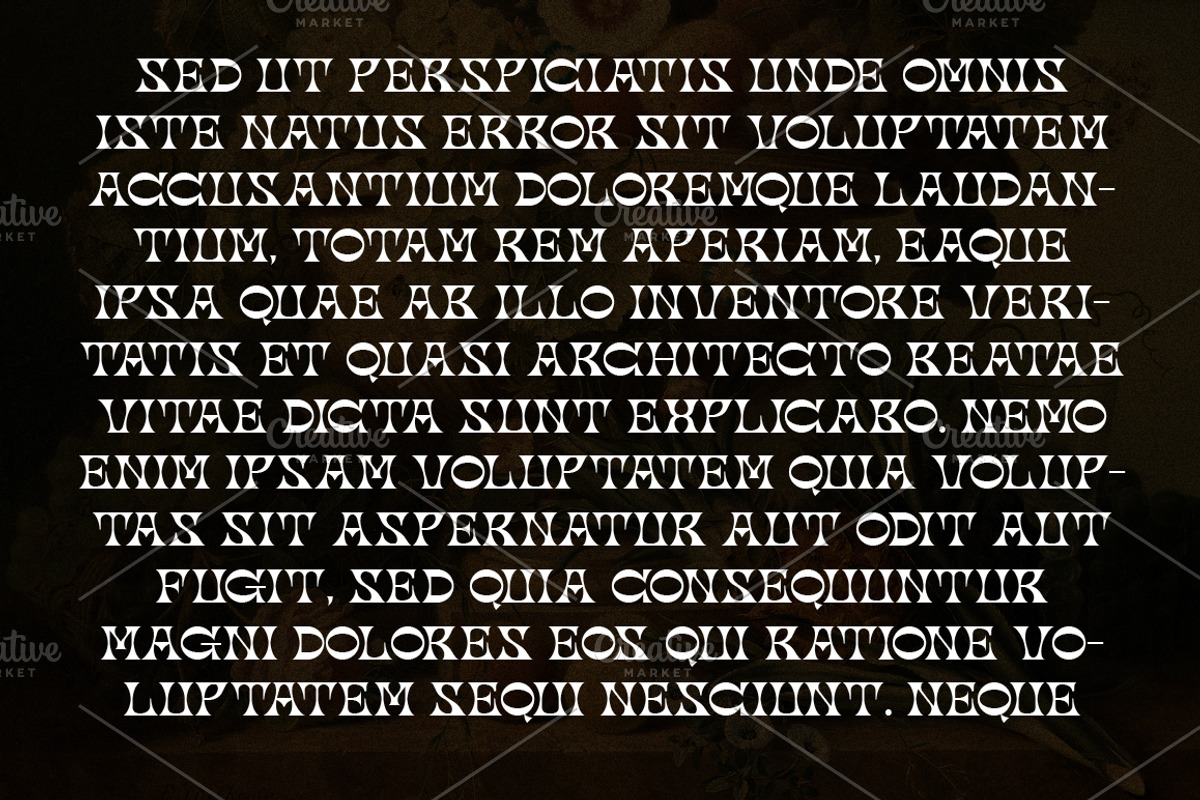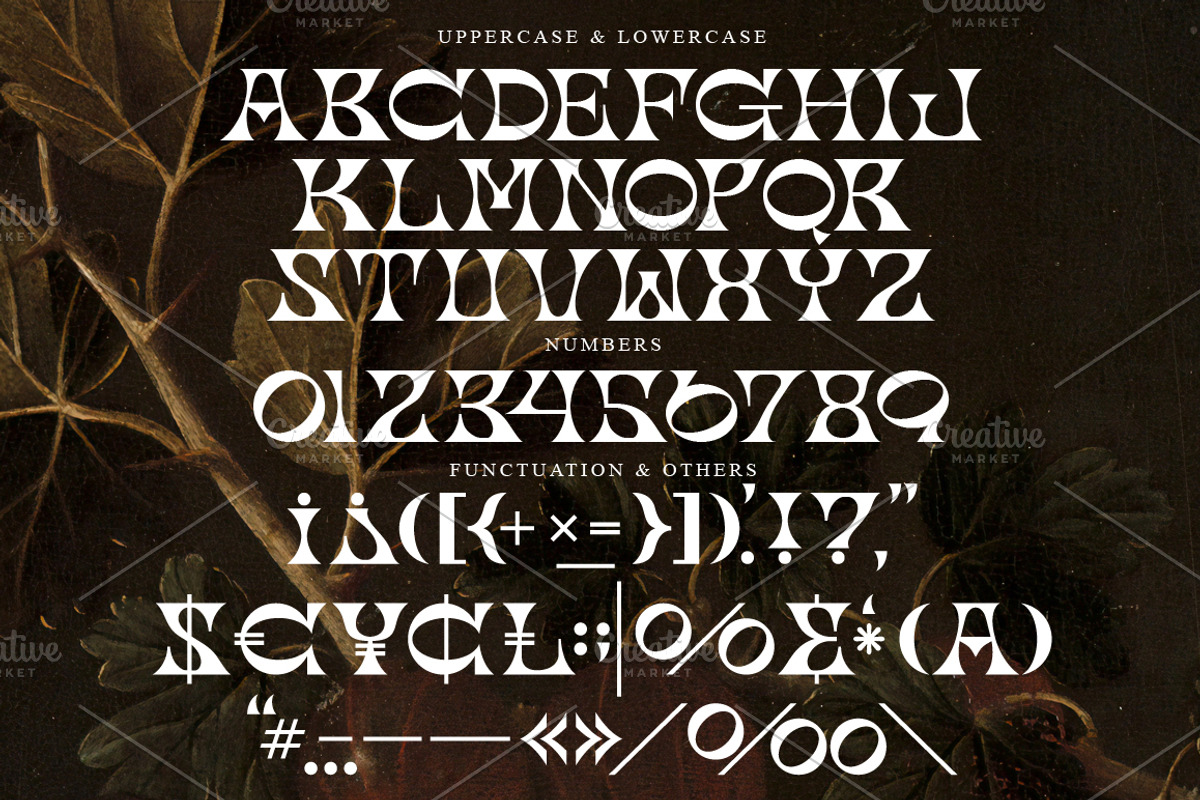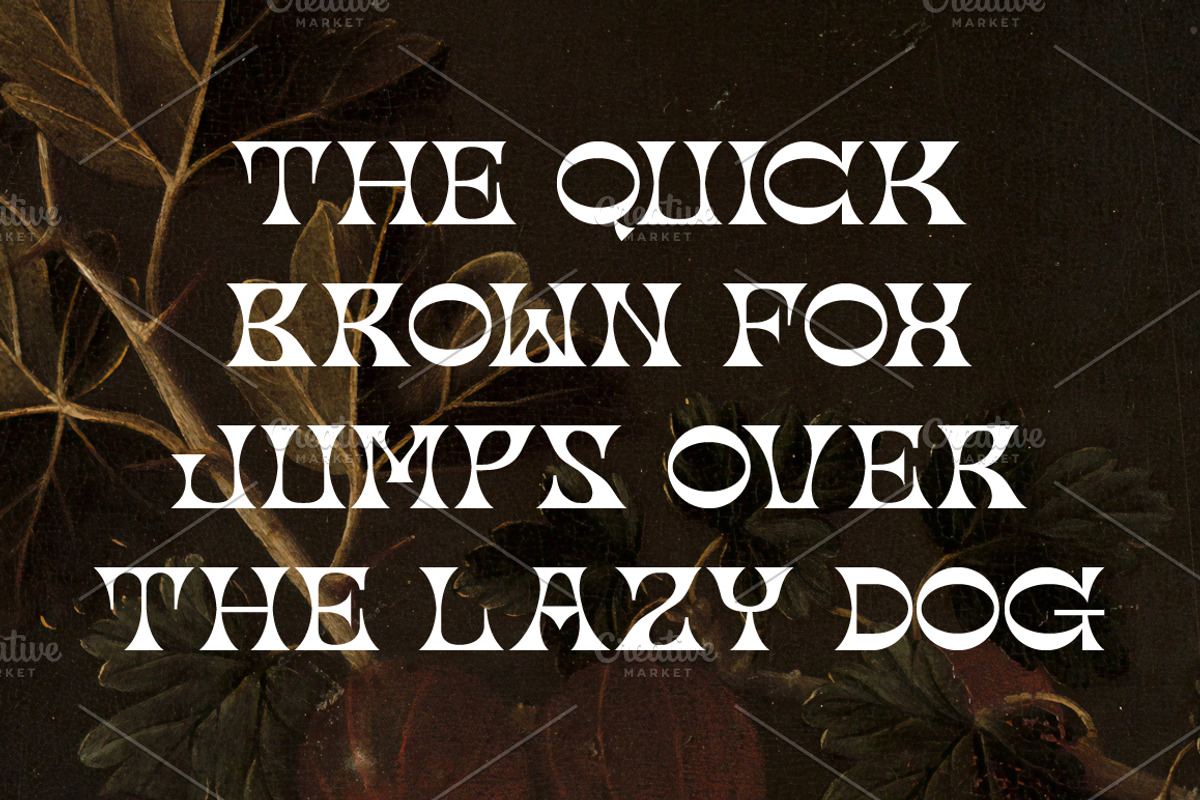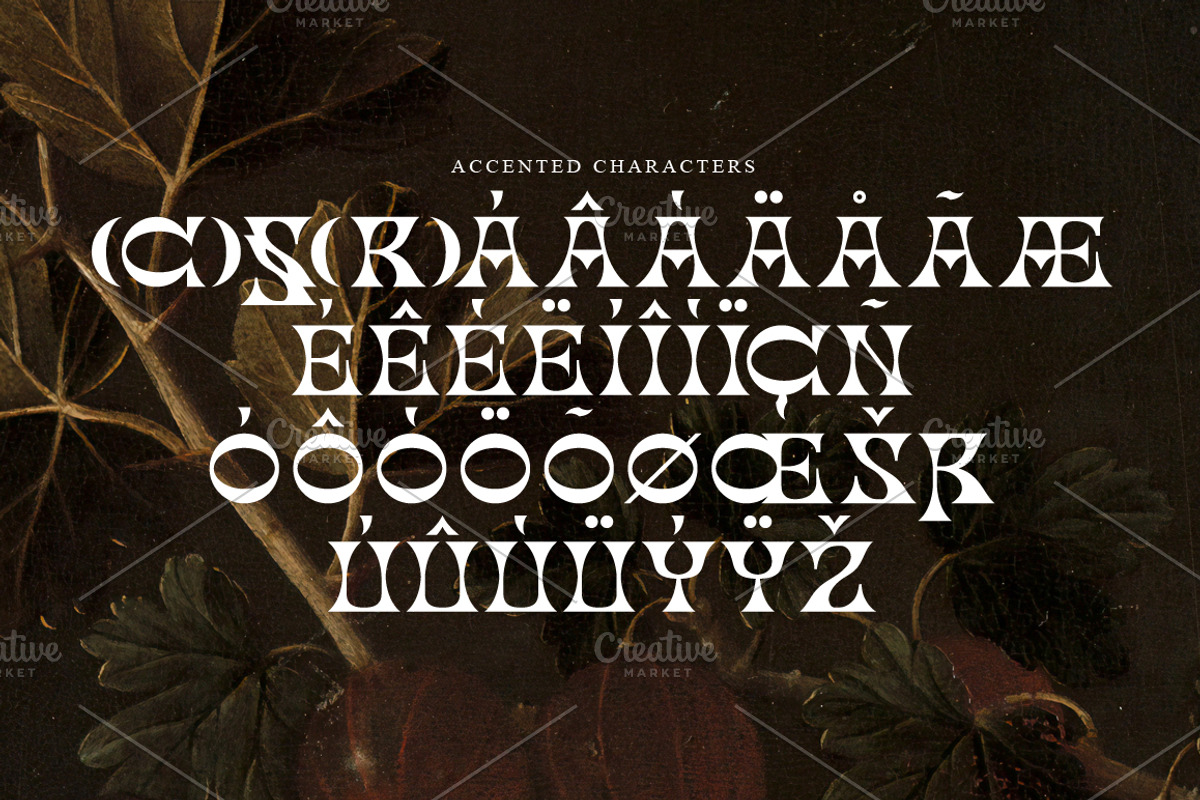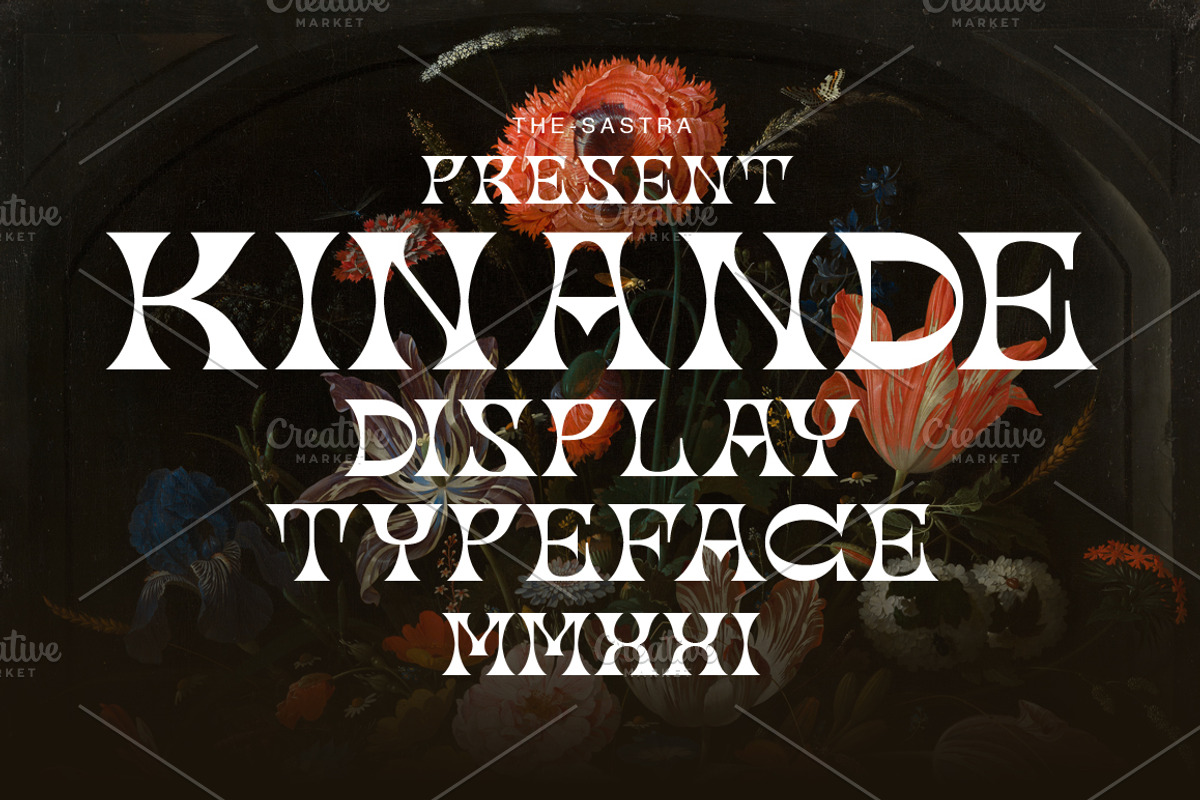
Kinande display typeface
Introducing a new Display font called Kinande. Kinande typeface is perfect for logo, quote, apparel and other creative applications.